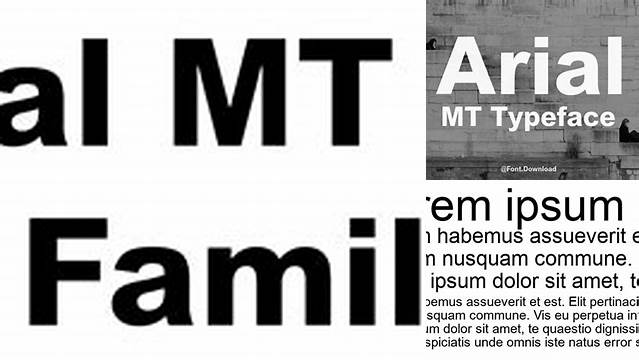
Arial MT Font: Uses, Benefits, And Best Practices
Welcome, guys! Today, we're diving deep into the world of typography, specifically focusing on the Arial MT font. This isn't just any font; it's a cornerstone of digital design, a familiar face in documents, and a versatile workhorse for various projects. Whether you're a seasoned designer, a student working on a paper, or just someone curious about the fonts you see every day, this guide will give you a solid understanding of Arial MT's characteristics, usage, and significance. We'll explore its history, compare it to similar fonts, and provide tips on how to use it effectively. So, grab your coffee, and let's get started!
What is Arial MT? Unveiling the Basics
Arial MT is a sans-serif typeface designed by Robin Nicholas and Patricia Saunders and released in 1982 by Monotype Imaging. It's a close variant of the popular Helvetica font, created to be metrically identical to Helvetica. This means that Arial MT was designed to have the same character widths and spacing as Helvetica, allowing for easy document exchange and compatibility across different systems. It's a neo-grotesque design, meaning it draws inspiration from the classic grotesque typefaces of the 19th century but with a more modern and refined aesthetic. You will find it everywhere, from Microsoft Windows to macOS and many other operating systems. This widespread availability is one of the key reasons why Arial MT has become such a ubiquitous font. Its clean lines, neutral appearance, and excellent readability make it a favorite for both print and digital applications.
The design of Arial MT aims for simplicity and clarity. The letterforms are straightforward, with minimal variation in stroke weight, contributing to its legibility, even at small sizes. Its wide range of weights and styles, including regular, bold, italic, and condensed versions, gives it remarkable flexibility. It's a workhorse for various needs. You can use it for body text, headlines, and everything in between. Arial MT's neutrality is one of its most significant strengths. It doesn't carry strong stylistic associations, making it suitable for a wide range of contexts. It's perfect for official documents, websites, presentations, and any project where clarity and readability are top priorities. From the documents you create daily to the websites you visit. This neutrality ensures that the focus remains on the content rather than being distracted by the font itself. The font's legibility is crucial for any communication. It's designed to be easily read across different screens, print mediums, and sizes. The characters are designed to be distinctive, reducing any potential confusion, even with similar-looking letters like 'l' and 'I.' Arial MT's design choices contribute to an easy-to-read experience.
Arial MT vs. Helvetica: The Great Font Debate
One of the most common questions surrounding Arial MT is how it compares to Helvetica. These two fonts are often confused because they look remarkably similar, but there are crucial differences to consider. As mentioned earlier, Arial MT was created to be metrically compatible with Helvetica. This compatibility was essential for software companies wanting to provide a font similar to Helvetica without paying licensing fees for the real deal. The intention was that documents using Helvetica would display correctly when opened on systems with Arial MT installed. In terms of design, however, there are subtle but noticeable distinctions. Helvetica is a classic, with a slightly more refined design. It has a more consistent stroke weight and a cleaner look. Arial MT, while similar, often has slightly wider letterforms and a more rounded appearance. These are the differences to the trained eye. Arial MT's 'G' and 'R' are prime examples. The tail of the 'R' in Helvetica usually curves, while in Arial MT, it tends to be straighter. The 'G' often has a slightly different shape in each font. The kerning (the space between letters) may also differ. Despite these differences, the overall readability of both fonts is excellent, especially in body text. Helvetica and Arial MT have become staples in design and everyday use.
When choosing between Arial MT and Helvetica, consider your project's specific needs and aesthetic goals. If you need a font that's widely available and offers good legibility without the need to pay for licenses, Arial MT is an excellent choice. If you want a font with a slightly more sophisticated and refined aesthetic and you're willing to pay for the licensing, then Helvetica might be the better option. For many users, the difference is negligible. Arial MT and Helvetica will serve their needs well. The key is understanding the small nuances that set them apart.
When and Where to Use Arial MT: Best Practices
So, where does Arial MT shine? Its versatility makes it a great choice for various applications, but here are some best practices to keep in mind. For body text, Arial MT's legibility makes it an excellent choice for large blocks of text. It's easy on the eyes, even when viewed for extended periods. Its neutral design doesn't distract from the content, allowing the reader to focus on the message. For headlines, Arial MT works well, especially when paired with a bolder weight. The bold versions can give your headings weight and prominence. Consider using it for subheadings and other secondary text elements. The varied weights and styles provide flexibility. For official documents, such as reports, presentations, and academic papers, Arial MT's clean, professional appearance makes it an ideal choice. It conveys a sense of reliability and clarity. For websites and digital interfaces, Arial MT's excellent readability on screens of all sizes. Ensure the font renders correctly across different devices. Choosing Arial MT often enhances the user experience.
When using Arial MT, the weight and style you select significantly impact how your design is perceived. The regular weight is excellent for body text, while the bold weights create visual hierarchy in headings and emphasize key information. Italics can add emphasis or denote a different tone. Condensed versions are useful for saving space. Color also plays a significant role. Arial MT works well with various colors, but ensuring sufficient contrast between the text and background is essential for readability. Black text on a white background is a classic combination. Still, you can experiment with other color schemes to match your brand's personality or the design's mood. Another critical factor is the size and spacing of the text. A good rule of thumb is to make the font size large enough to be easily read. Adjusting the line spacing (leading) can improve readability, especially in large blocks of text. The space between letters (kerning) also plays a role. The right spacing ensures letters don't appear cramped or too spread out.
Exploring Variations: Arial MT's Extended Family
While Arial MT itself is a versatile font, it also comes in a range of variations that expand its capabilities. These variations can help you create a more diverse and engaging design. The Arial MT Bold is a stronger, more prominent version. It's perfect for headlines, subheadings, and emphasis. Its heavier weight makes it stand out. The Arial MT Italic provides a slanted style to highlight words or phrases. It's great for quotes, book titles, or adding a touch of style. The Arial MT Bold Italic combines the characteristics of both bold and italic versions. It's perfect for adding strong emphasis. The Arial MT Condensed is a space-saving option. This version is ideal for designs where space is limited, such as in narrow columns or on business cards. The Arial MT family of fonts allows for flexibility. These variations let you create a coherent visual experience. Understanding these options lets you tailor your design. You can use them to create a better presentation.
When you choose the right variations for your project. The key is understanding the characteristics of each style and using them appropriately. Using too many different styles can make your design look cluttered. Balance and consistency are key. By knowing these variations, you can create a more well-rounded design.
Tips and Tricks: Mastering Arial MT
Want to make the most of Arial MT? Here are some tips and tricks. When you are using Arial MT for body text, select a size that enhances readability. A common size is 11 or 12 points. Adjust the line spacing to improve readability, usually setting it at 1.2 to 1.5 times the font size. This spacing improves the visual flow of the text. For headlines, use bold or larger sizes to make the text stand out. Consider the overall design and balance. Ensure you have enough contrast between the text and background to ensure readability. Avoid overusing italics, and save them for short passages. Italicizing long blocks of text can make them difficult to read. When possible, experiment with different weights and styles. Consider the project's overall style. Consider what works best for your message. The appropriate use of kerning, or adjusting the space between the letters. Adjust the kerning as necessary. Keep a consistent style. Make sure you keep the font usage consistent throughout the project. Keep a good balance of typefaces and fonts. Arial MT is usually best paired with other sans-serif fonts. Always preview your design on different devices and browsers. Test the accessibility of your design. This includes ensuring enough contrast for the visually impaired. By following these tips and tricks, you can make the most of Arial MT. You'll get a design that's visually appealing and effective.
Conclusion: The Enduring Legacy of Arial MT
In conclusion, Arial MT is more than just a font; it's a design companion. Its wide availability, versatility, and excellent readability have made it an important typeface for designers. From its metrically identical relationship with Helvetica to its use in various applications, Arial MT continues to be a valuable tool for communication. As technology evolves and design trends shift, Arial MT's timeless qualities will likely keep it as a font for generations to come. Now that you know a bit more about it, use it wisely and let your creativity flow! Thanks for reading, and keep designing, guys!